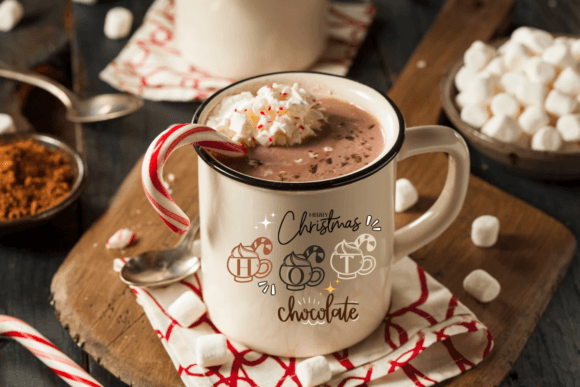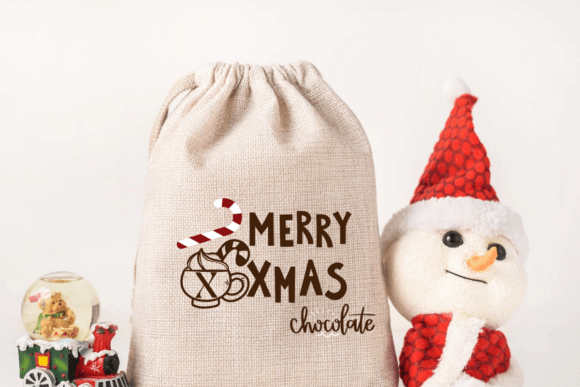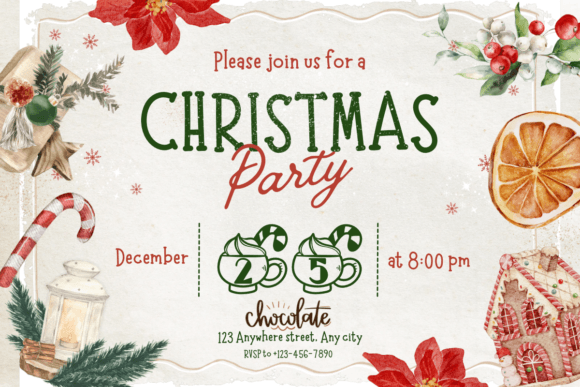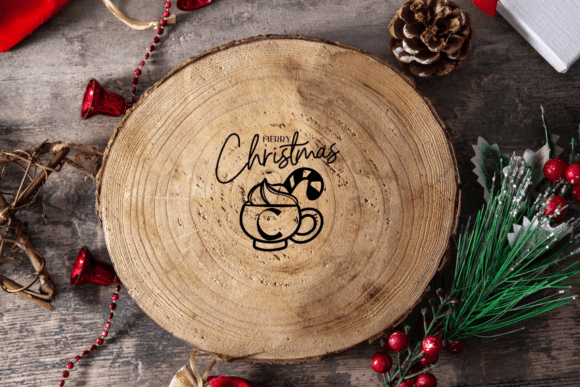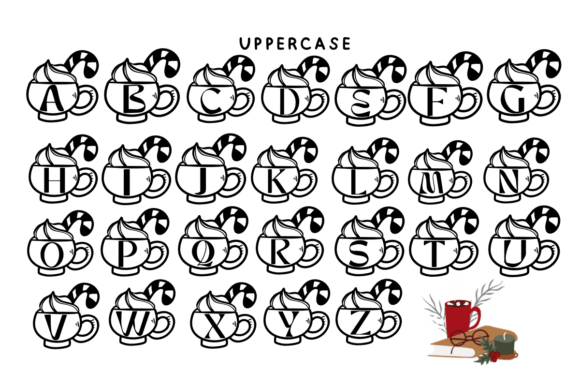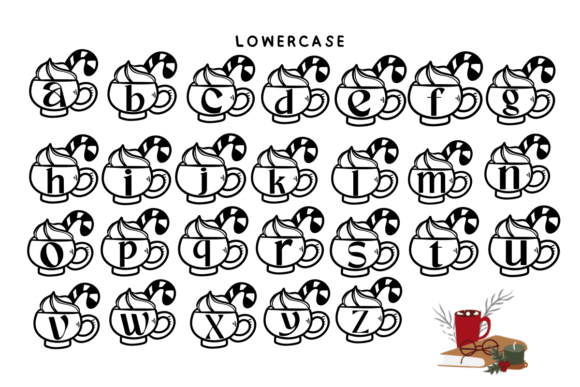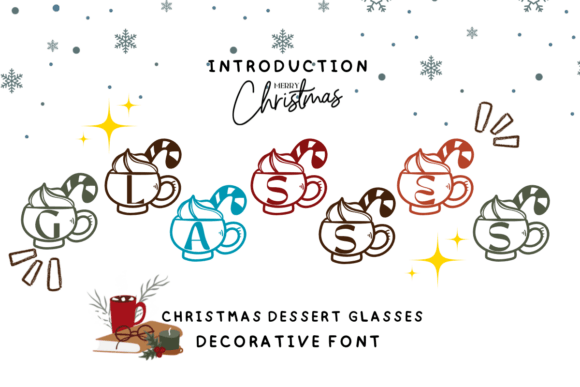
Introducing Christmas Dessert Glasses Font: A Festive Addition to Your Designs
Are you looking for a font that captures the essence of Christmas and adds a touch of festivity to your designs? Look no further than Christmas Dessert Glasses Font! This decorative font is perfect for designers and crafters who want to create holiday-themed projects that stand out. In this article, we’ll explore the features and uses of Christmas Dessert Glasses Font, and how you can incorporate it into your designs.
What is Christmas Dessert Glasses Font?
Christmas Dessert Glasses Font is a decorative font with a festive theme that’s perfect for the holiday season. The font features elegant and playful designs that resemble Christmas dessert glasses, complete with intricate details and ornaments. The font is designed to be versatile and can be used for a variety of projects, from personal to commercial.
Uses of Christmas Dessert Glasses Font
Christmas Dessert Glasses Font is a versatile font that can be used for a wide range of designs, including:
- Note-taking and journaling: Add a festive touch to your notes and diary entries with Christmas Dessert Glasses Font.
- Greeting cards: Create beautiful and unique holiday greeting cards with this font.
- Banners and signs: Use Christmas Dessert Glasses Font to create eye-catching banners and signs for your holiday events.
- Social media posts: Add some holiday cheer to your social media posts with this festive font.
- Mugs and ceramics: Design personalized holiday mugs and ceramics with Christmas Dessert Glasses Font.
- T-shirts and apparel: Create festive holiday apparel with this font.
- Stationery and paper crafts: Use Christmas Dessert Glasses Font to create beautiful holiday stationery and paper crafts.
Why Choose Christmas Dessert Glasses Font?
There are many reasons why Christmas Dessert Glasses Font stands out from other festive fonts:
- Unique design: The font features a unique and eye-catching design that’s sure to grab attention.
- Festive theme: The font is designed specifically for the holiday season, making it perfect for Christmas and other winter celebrations.
- Versatility: Christmas Dessert Glasses Font can be used for a wide range of designs, from personal to commercial.
Tips for Using Christmas Dessert Glasses Font
Here are some tips for getting the most out of Christmas Dessert Glasses Font:
- Experiment with colors: Try pairing the font with different colors to create unique and eye-catching designs.
- Mix and match with other fonts: Combine Christmas Dessert Glasses Font with other fonts to create interesting and dynamic designs.
- Use it for headlines and titles: The font is perfect for headlines and titles, adding a touch of festivity to your designs.
- Don’t be afraid to get creative: Christmas Dessert Glasses Font is a versatile font that can be used in many different ways, so don’t be afraid to experiment and try new things.
Christmas Dessert Glasses Font is a festive and versatile font that’s perfect for designers and crafters who want to add a touch of holiday cheer to their designs. With its unique design, festive theme, and ease of use, this font is sure to become a favorite in your design collection. Whether you’re creating holiday greeting cards, social media posts, or festive apparel, Christmas Dessert Glasses Font is the perfect choice.